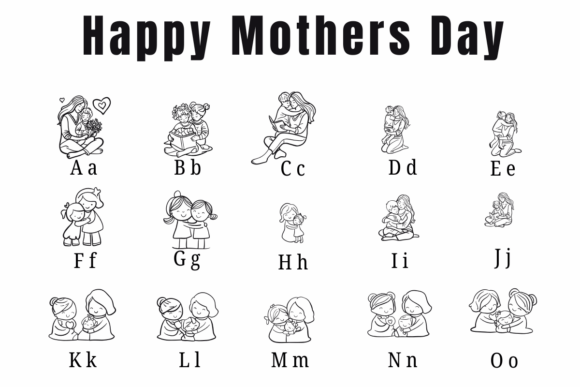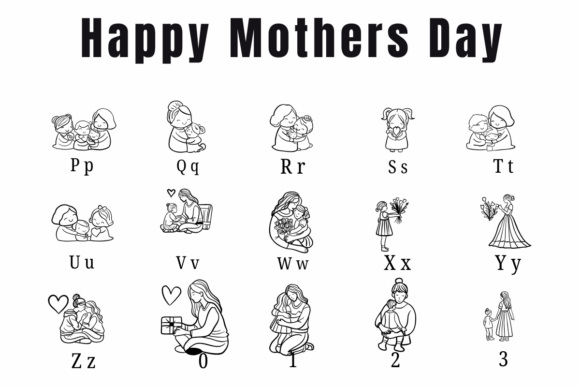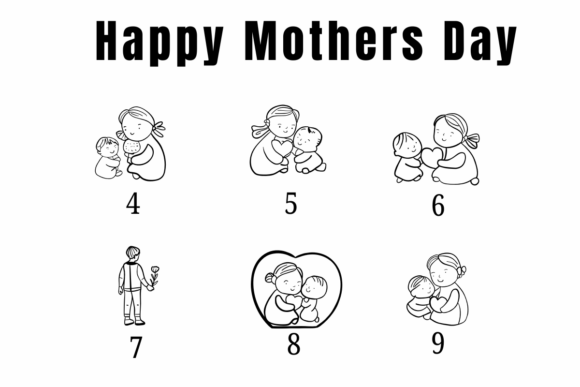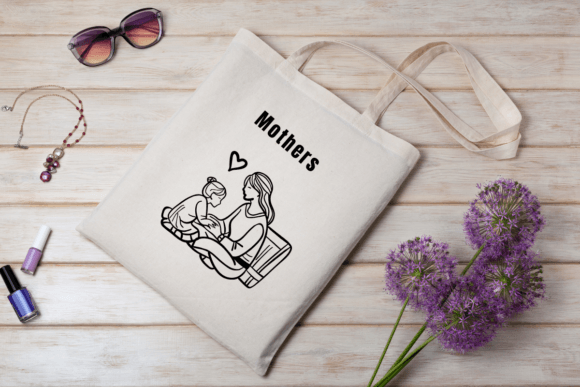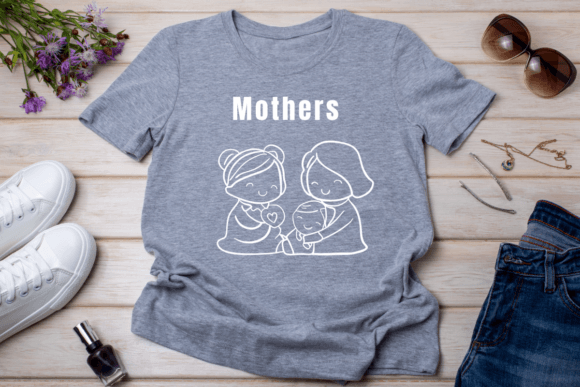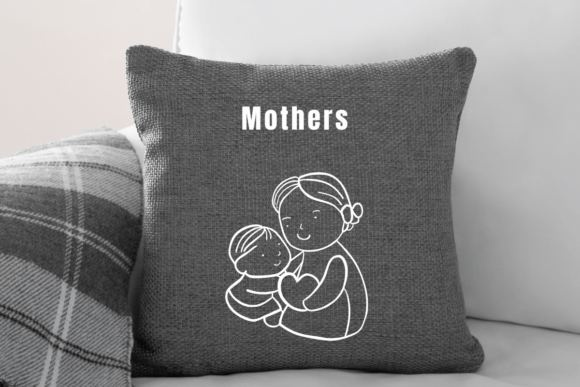
Happy Mothers Day Font: Celebrate Motherhood with Love and Joy
Are you looking for a special way to express your love and gratitude to your mom on Mother’s Day? Do you want to create personalized cards, scrapbooks, and invitations that capture the essence of motherhood? Look no further than the Happy Mother’s Day Dingbats Font! This charming collection of hand-drawn illustrations is perfect for designers and crafters who want to add a touch of warmth and emotion to their projects.
What is the Happy Mothers Day Font?
The Happy Mother’s Day Dingbats Font is a unique and delightful collection of illustrations that celebrate the love and bond of motherhood. This dingbat font features delicate and heartwarming hand-drawn images of mothers and children in various tender moments, such as hugs, kisses, and cuddles. Each illustration is carefully crafted to convey the joy, love, and appreciation that comes with being a mother.
Perfect for Personalized Mother’s Day Projects
With the Happy Mother’s Day Dingbats Font, you can create personalized Mother’s Day cards, scrapbooks, invitations, and designs that will make your mom feel special. The font is perfect for:
- Creating handmade Mother’s Day cards with custom illustrations
- Designing personalized scrapbook pages that capture cherished memories
- Adding a touch of warmth and emotion to Mother’s Day invitations
- Creating heartfelt designs for social media and blogs
Features of the Happy Mothers Day Font
The Happy Mother’s Day Dingbats Font is a versatile and user-friendly font that offers a range of features, including:
- Hand-drawn illustrations of mothers and children in various tender moments
- Delicate and heartwarming designs that convey love and appreciation
- Easily scalable and editable
Why Choose the Happy Mothers Day Font?
If you’re looking for a unique and special way to celebrate Mother’s Day, the Happy Mother’s Day Dingbats Font is the perfect choice. Here are just a few reasons why:
- Unique and exclusive illustrations that will make your projects stand out
- Easily customizable to fit your design style and preferences
- Perfect for designers, crafters, and DIY enthusiasts
Tips and Inspiration for Using the Happy Mothers Day Font
Here are some tips and inspiration for using the Happy Mother’s Day Dingbats Font in your projects:
- Combine the font with other design elements, such as photos and textures, to create a unique and personalized design
- Use the font to create a custom Mother’s Day card or invitation that will make your mom feel special
- Experiment with different colors and design styles to match your brand or personal style
The Happy Mother’s Day Dingbats Font is a delightful and charming collection of illustrations that celebrate the love and bond of motherhood. Perfect for designers, crafters, and DIY enthusiasts, this font is a must-have for creating personalized Mother’s Day cards, scrapbooks, invitations, and designs. With its delicate and heartwarming illustrations, this font is sure to add a touch of warmth and emotion to every project. So why wait? Download the Happy Mother’s Day Dingbats Font today and start creating your own special Mother’s Day designs!